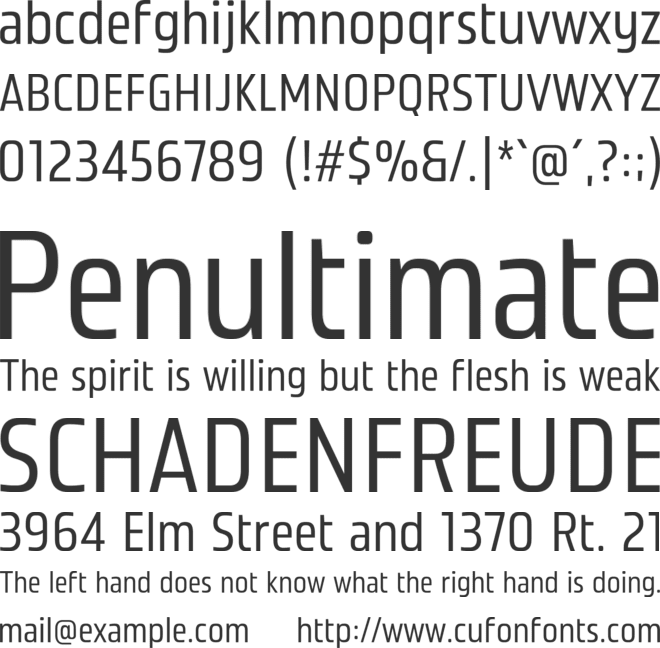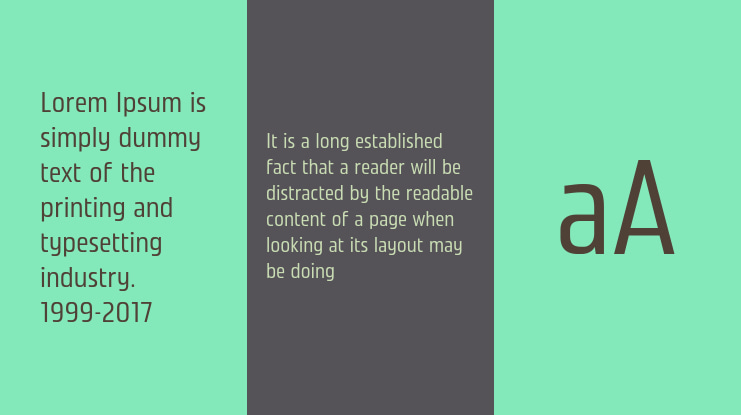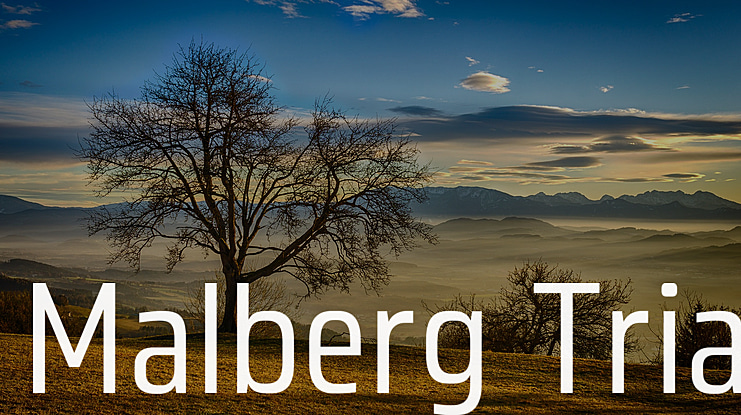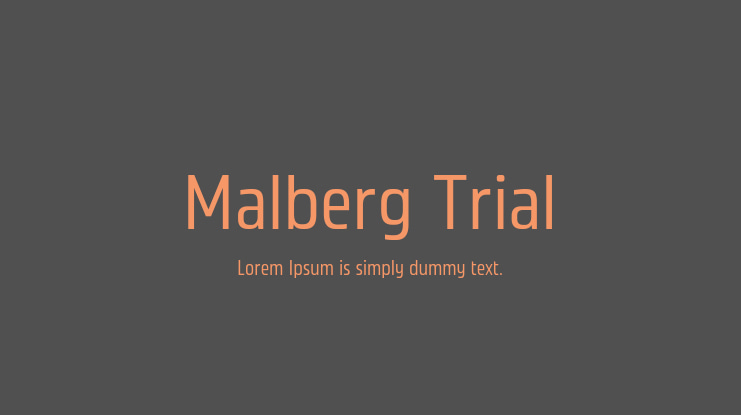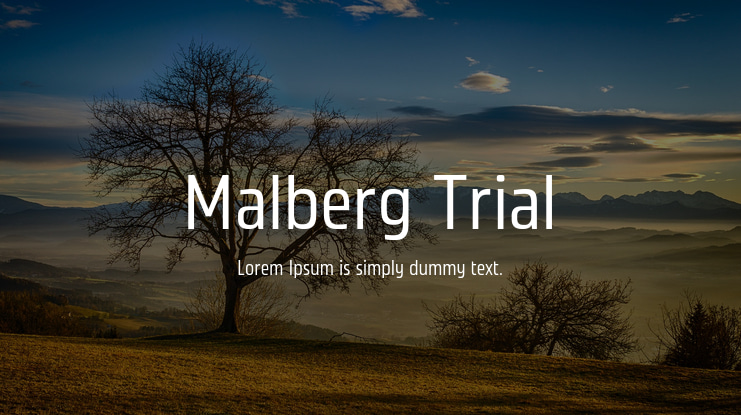
Malberg Trial Font Family
This is a sans serif font created by Eko Bimantara with a solid and strong impression. Consist of 9 styles from thin to heavy with matching obliques. A simple, modern, futuristic font that can be applied to many areas of design. Fit for display and short text for various design purposes.